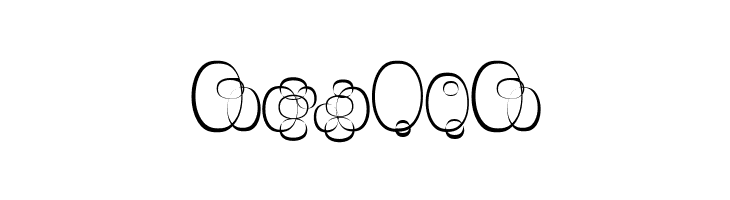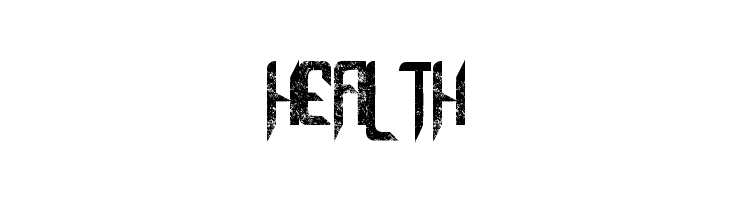
A decorative font with characters embedded in piano key graphics.
An abstract, decorative font with overlapping circular shapes forming each character.
A bold, distressed font with an edgy, angular design.
A decorative font with characters embedded in grand piano silhouettes, ideal for music-themed designs.
A wavy, abstract font mimicking redacted text with a modern, artistic style.
A futuristic and abstract font with circular and radial elements, ideal for modern designs.
A bold, angular font with a rock-inspired, edgy design.
A playful, hand-drawn font with whimsical, thin lines and unique character designs.
A bold, playful font with rounded edges and a whimsical style.